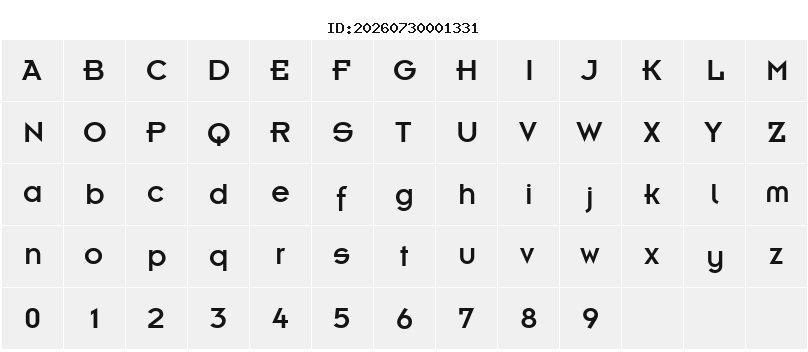
• Font Name: Kernel Alternate SSi
• Font Style: Alternate
• Full Font Name: Kernel Alternate SSi Alternate
About Kernel Alternate SSi.ttf
Kernel Alternate SSi.ttf is a modern, elegant sans-serif font designed for ultimate readability and visual harmony. Perfect for branding, headlines, web design, and print materials.